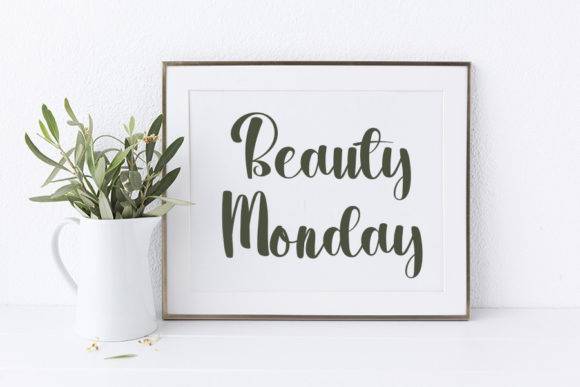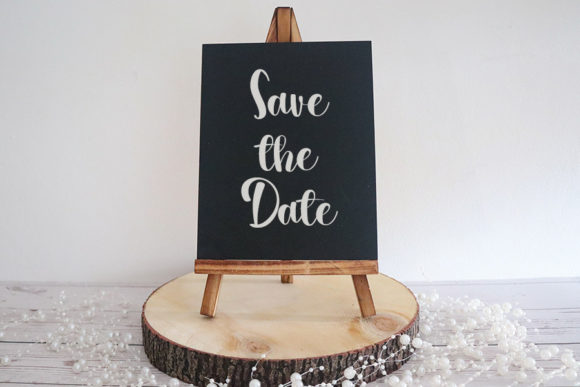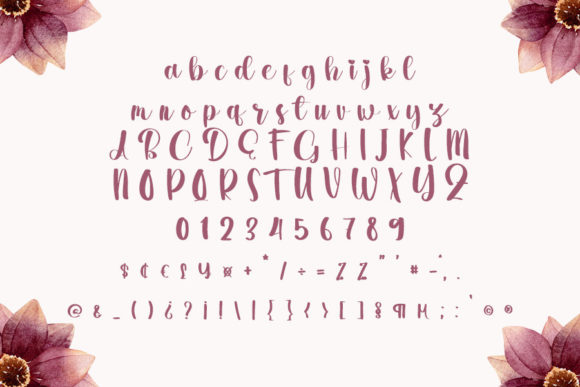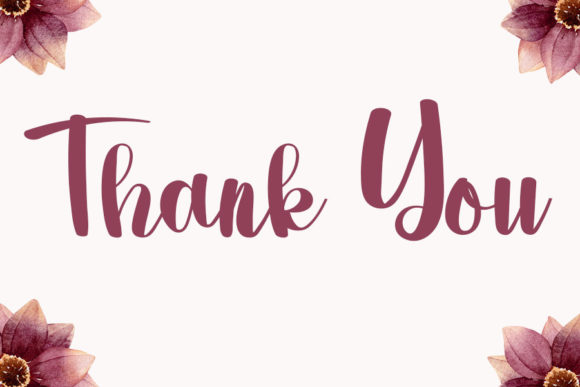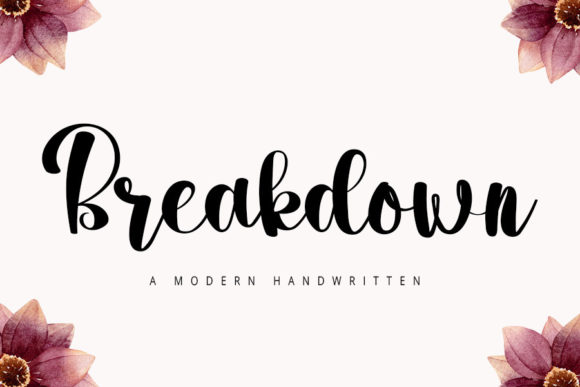
Discover the Charm of Breakdown Font: Elevate Your Designs with Elegance
In the world of typography, fonts play a crucial role in conveying the tone and personality of a design. For designers and crafters seeking a typeface that exudes both charm and elegance, the Breakdown Font is an exceptional choice. This beautiful, handwritten font is perfect for a variety of design projects, including wedding invitations, thank you cards, quotes, greeting cards, logos, business cards, and more.
The Characteristics of Breakdown Font
Breakdown Font is characterized by its delicate and refined strokes, which give it a sophisticated and luxurious feel. Its elegant appearance makes it an ideal choice for designs that require a touch of sophistication and glamour. The font’s handwritten nature adds a personal and intimate feel to any design, making it perfect for special occasions and events.
Versatility of Breakdown Font
One of the standout features of Breakdown Font is its versatility. It can be used in a wide range of design projects, from formal events like weddings and galas to more casual applications like social media graphics and blog posts. The font’s adaptability makes it a valuable addition to any designer’s toolkit.
Why Choose Breakdown Font?
There are several reasons why Breakdown Font stands out from other typefaces:
• Elegant and Charming: Breakdown Font has a unique charm that sets it apart from other fonts. Its elegant appearance makes it perfect for designs that require a touch of sophistication.
• Handwritten Touch: The font’s handwritten nature adds a personal and intimate feel to any design, making it perfect for special occasions and events.
• Versatile: Breakdown Font can be used in a wide range of design projects, from formal events to casual applications.
• Easy to Read: The font is clear and easy to read, making it perfect for body text and captions.
Design Ideas Using Breakdown Font
Breakdown Font can be used in a variety of design projects, including:
• Wedding Invitations: The font’s elegant appearance makes it perfect for wedding invitations, save-the-date cards, and other wedding-related designs.
• Thank You Cards: Breakdown Font is ideal for thank you cards, greeting cards, and other correspondence.
• Quotes and Posters: The font’s elegant appearance makes it perfect for quotes, posters, and other inspirational designs.
• Logos and Branding: Breakdown Font can be used to create elegant and sophisticated logos and branding materials.
• Business Cards: The font is perfect for business cards, brochures, and other marketing materials.
Tips for Using Breakdown Font
Here are some tips for using Breakdown Font effectively:
• Pair with Other Fonts: Breakdown Font can be paired with other fonts to create a unique and visually appealing design.
• Use for Headings and Titles: The font is perfect for headings and titles, where its elegant appearance can be showcased.
• Experiment with Colors: Breakdown Font can be used with a variety of colors to create different moods and effects.
Breakdown Font is a beautiful and elegant typeface that can elevate any design project. Its charming and sophisticated appearance makes it perfect for a wide range of applications, from wedding invitations to logos and branding materials. With its versatility, ease of use, and elegant appearance, Breakdown Font is an excellent choice for designers and crafters seeking to add a touch of elegance to their designs.
Whether you’re a seasoned designer or a crafty DIY enthusiast, Breakdown Font is sure to become a valuable addition to your toolkit. So why not give it a try and see how it can enhance your designs?